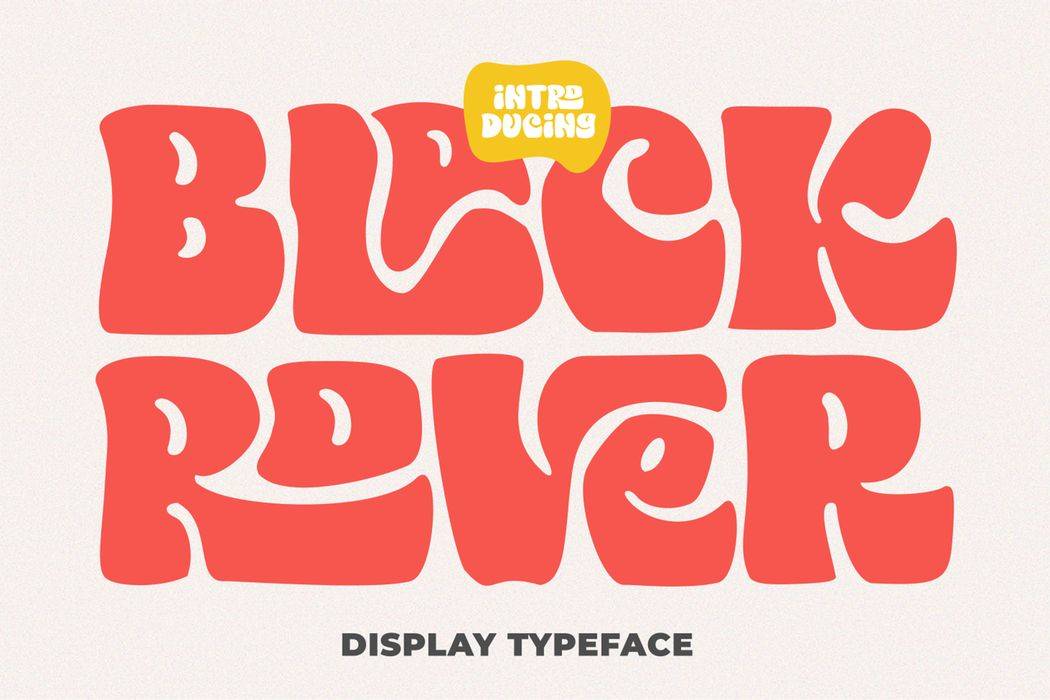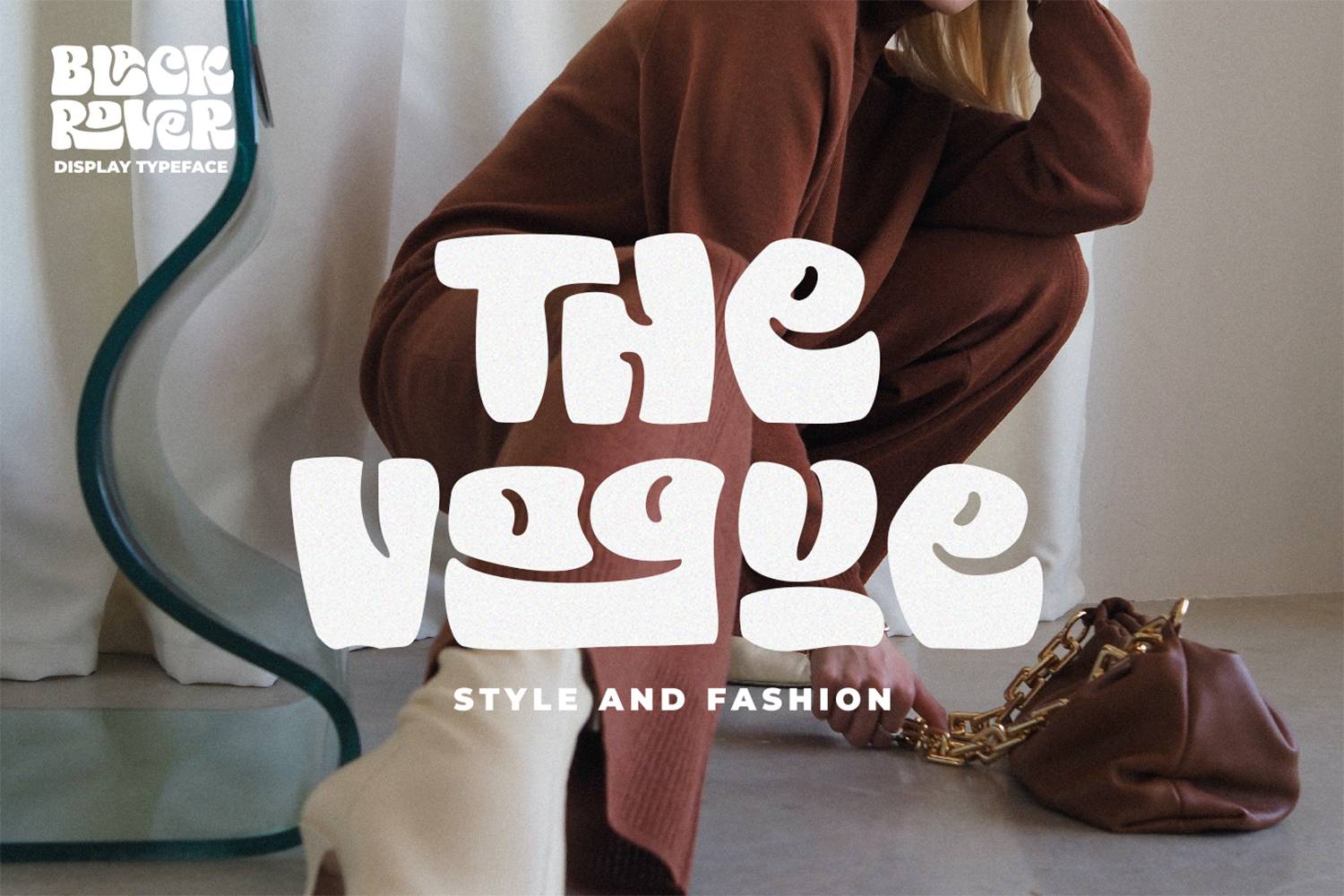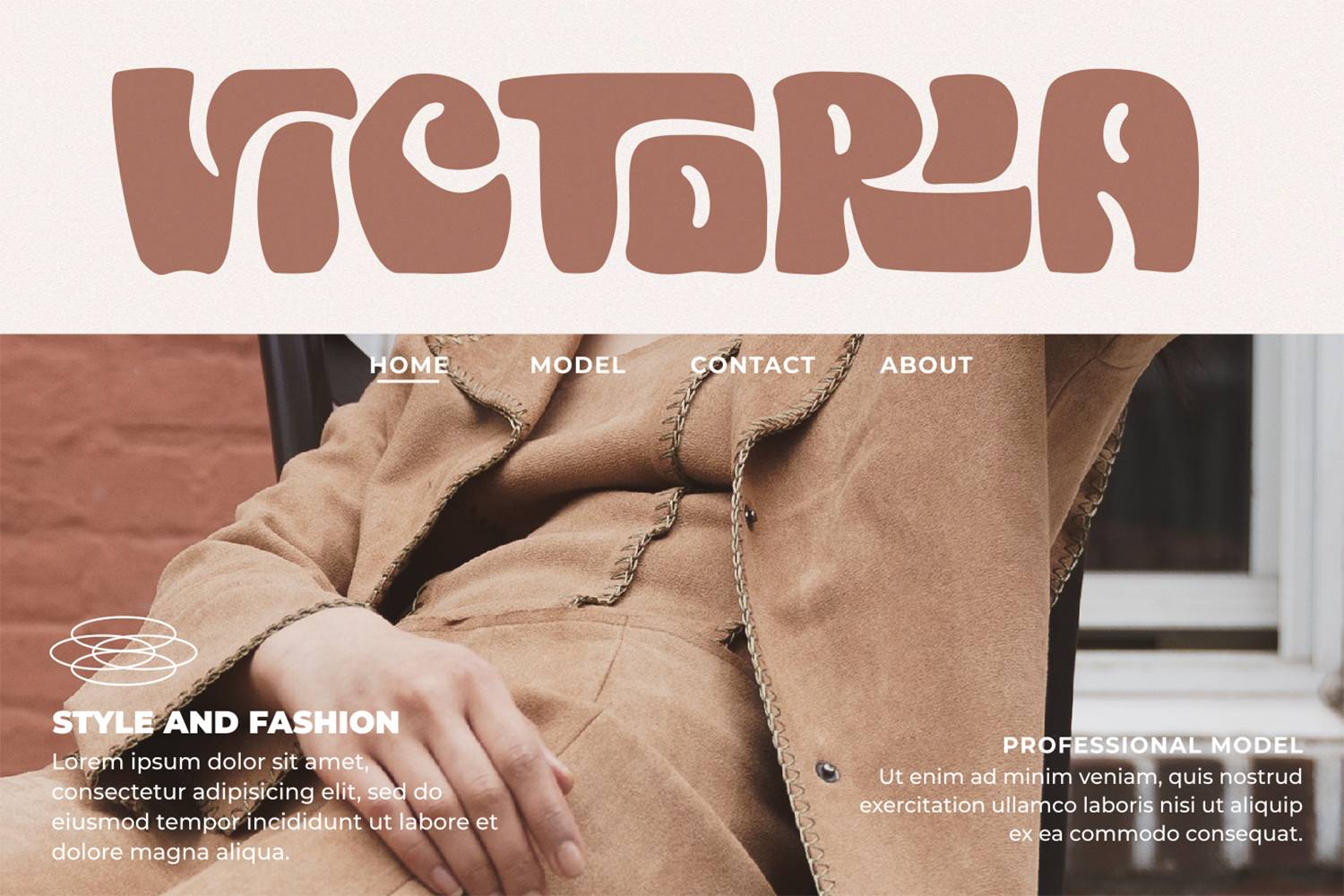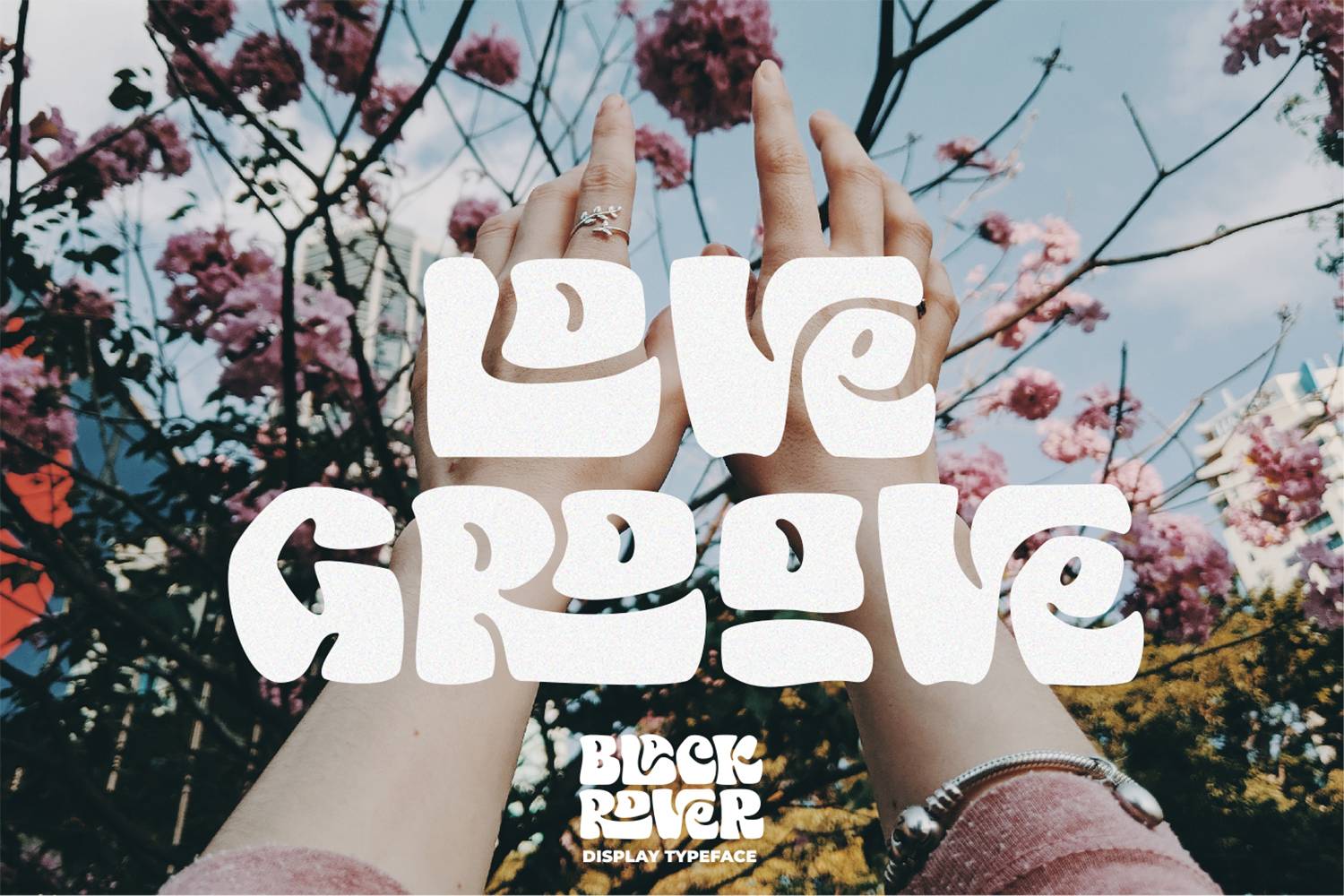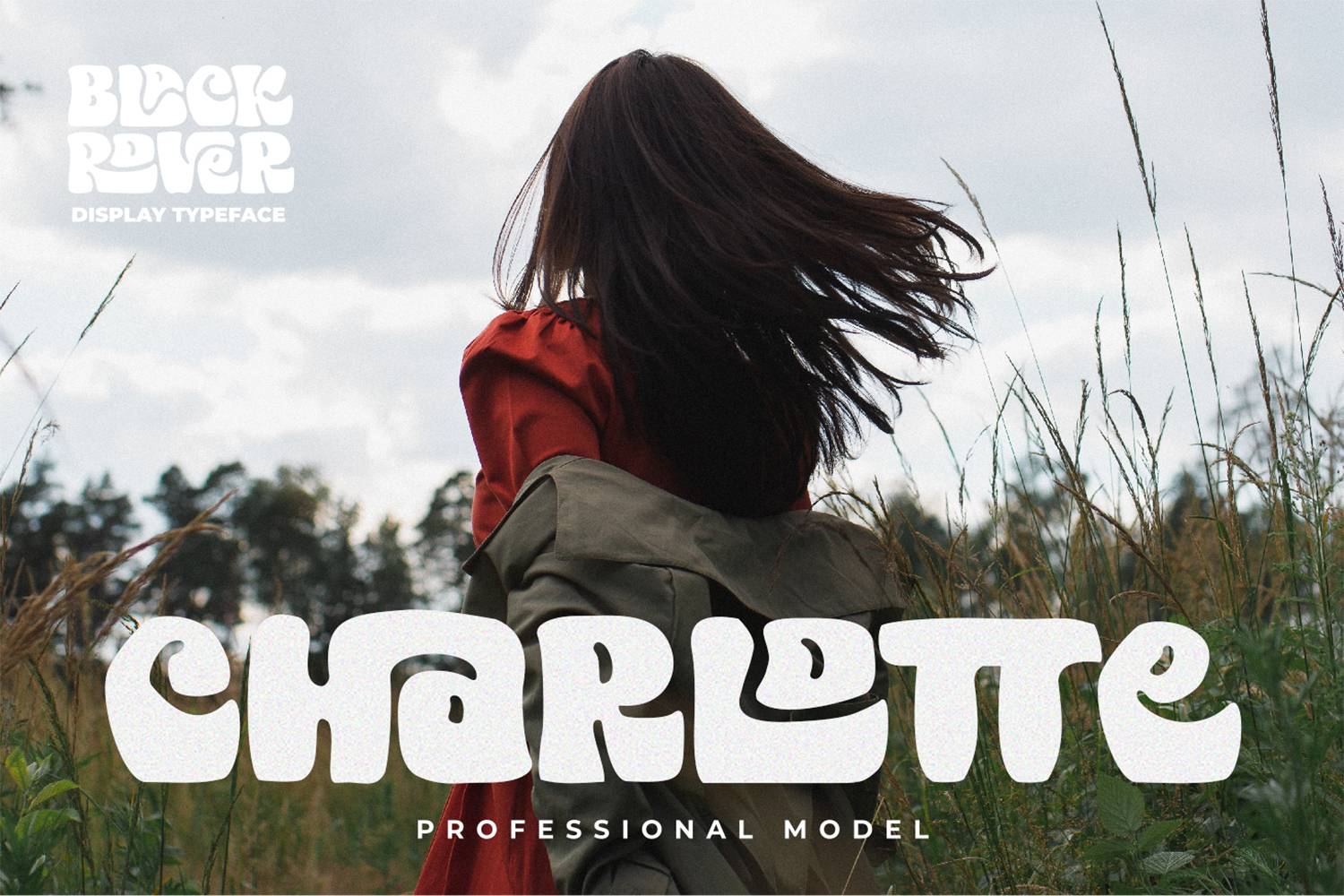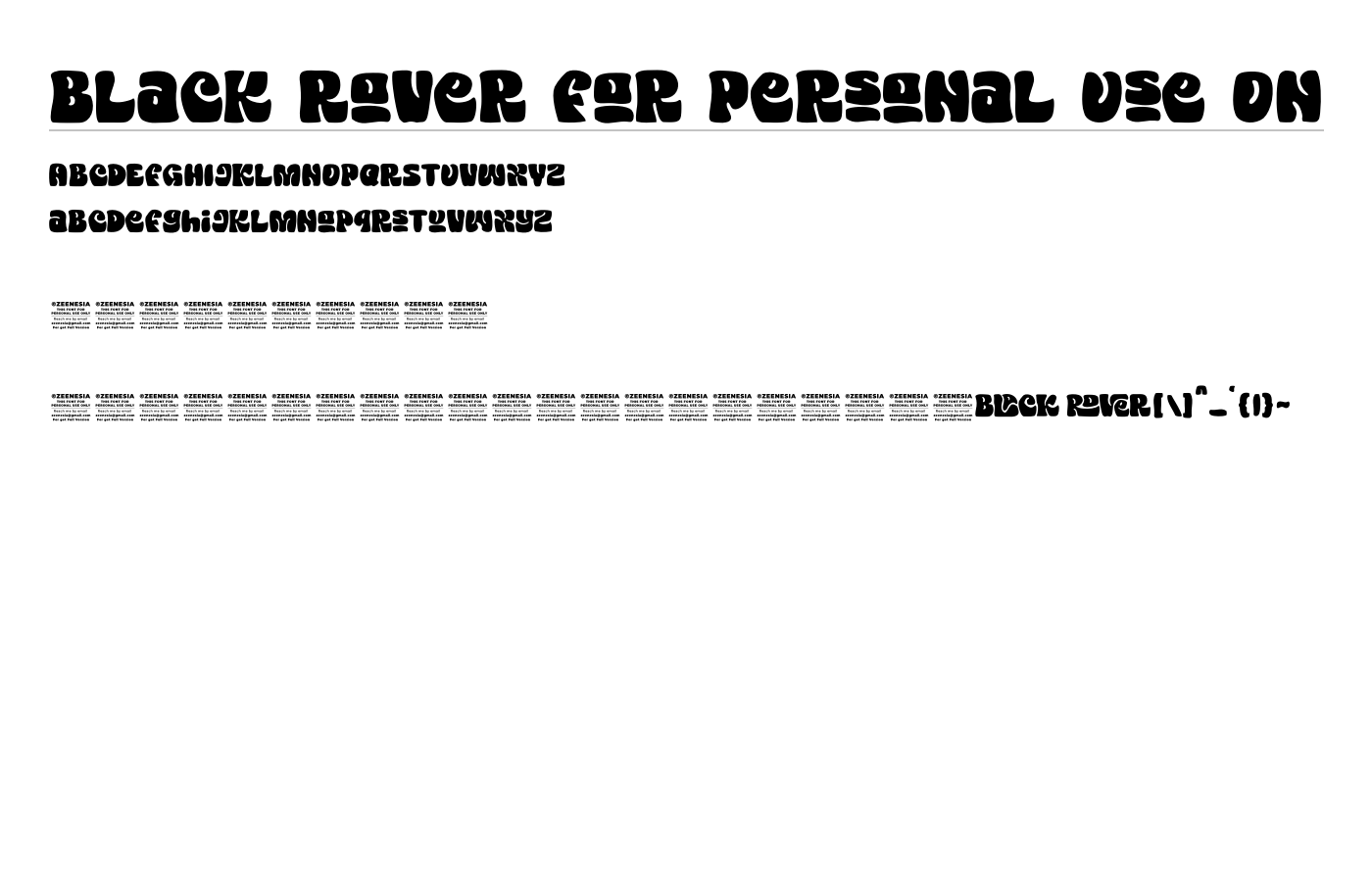
Black Rover is a bold, playful display font with thick, rounded letterforms that create a fun and quirky vibe. Its unique, almost cartoon-like shapes make it ideal for eye-catching headlines, logos, or creative projects that want to convey a sense of whimsy and energy. This font works best in informal, youthful designs where personality and charm are key.
Black Rover Font
About Black Rover Font
| Font family | Black Rover Font |